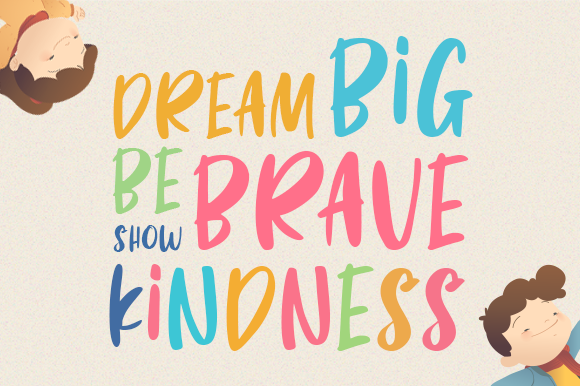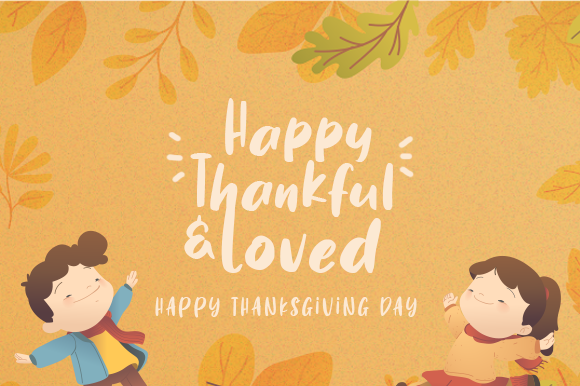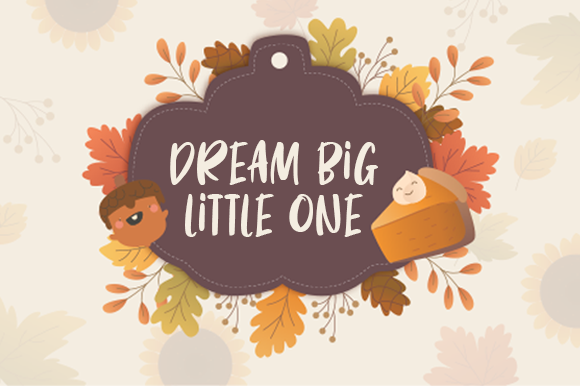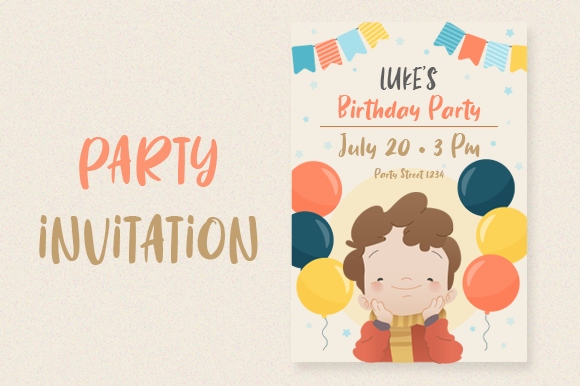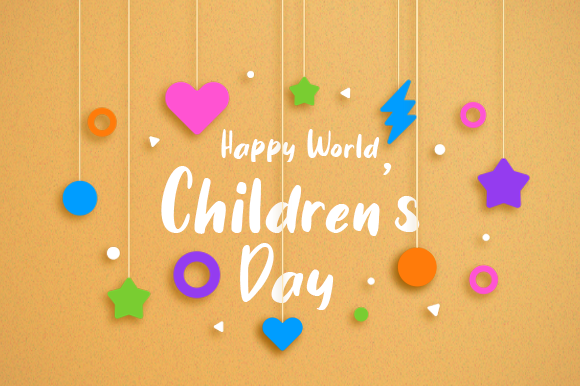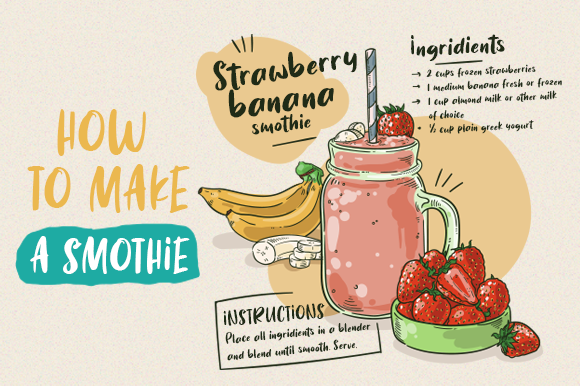
Introduction to Cuddly Kid Font
Have you ever been working on a creative project, pouring your heart and soul into it, and then, just as you’re about to finalize the design, you realize it’s missing that special something? That’s where the perfect font can make all the difference. For many designers, finding the right font can be a game-changer, and that’s exactly where the Cuddly Kid Font comes in.
This adorable handwritten font is more than just a pretty face – it’s a design resource that can elevate any project from meh to mesmerizing. With its friendly feel and high-quality design, Cuddly Kid Font is the perfect addition to any creative endeavor, whether you’re working on a social media campaign or a DIY project that requires a bit of calligraphy magic.
Key Features of Cuddly Kid Font
- Unique and Whimsical Design: The Cuddly Kid Font is a one-of-a-kind design resource perfect for creative projects that require a playful and endearing touch.
- Transparent Background: The Cuddly Kid Font comes with a transparent background, allowing for seamless integration into various design projects and backgrounds.
- Perfect for Kids’ Projects: As the name suggests, this font is specifically designed for kids’ projects, such as children’s books, nursery decor, and educational materials.
Honest Review: Cuddly Kid Font
I recently stumbled upon the Cuddly Kid Font, a design resource that caught my attention with its adorable and playful characters. The font is perfect for creating a fun and whimsical atmosphere in your next project, and the free download makes it an attractive option for designers on a budget.
What works well: ✨ The font is highly customizable, with a range of styles and variations that allow you to create a unique look for your project. The characters are also well-designed, with clear and readable text that makes it easy to work with. Additionally, the transparent background feature makes it easy to layer the font over other design elements.
However, there are some limitations: ⚠️ The font is limited to a specific set of characters, which may not be suitable for all types of projects. Additionally, the font may not be as versatile as some other design resources, making it less suitable for complex or high-end projects.
Overall, I think the Cuddly Kid Font is a great addition to any designer’s toolkit, particularly for creative projects that require a playful and whimsical touch. With its high quality design and transparent background feature, it’s a great resource to have on hand.
- Perfect for creative projects, such as children’s books or game design
- Highly customizable with a range of styles and variations
- Well-designed characters with clear and readable text
- Transparent background feature for easy layering